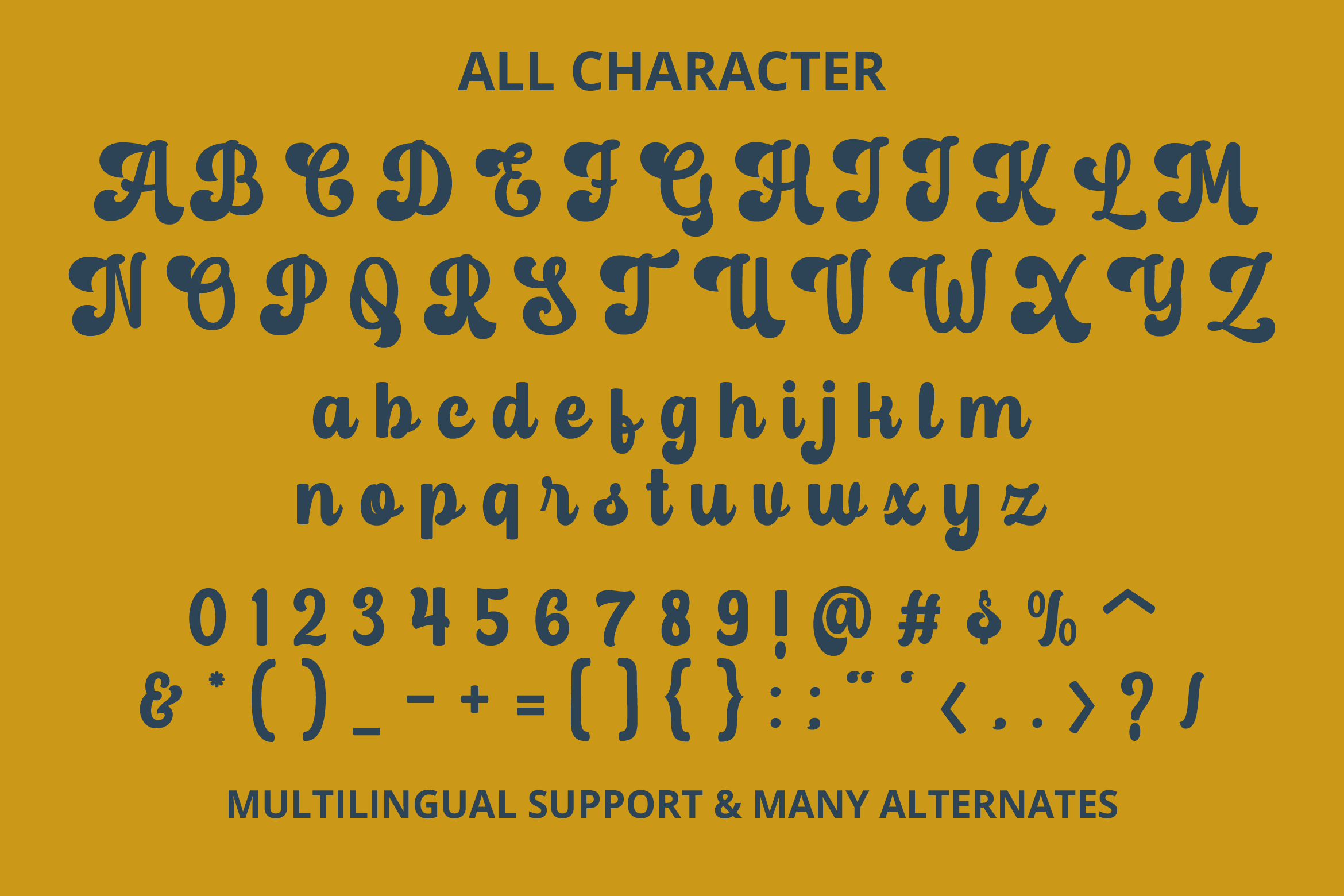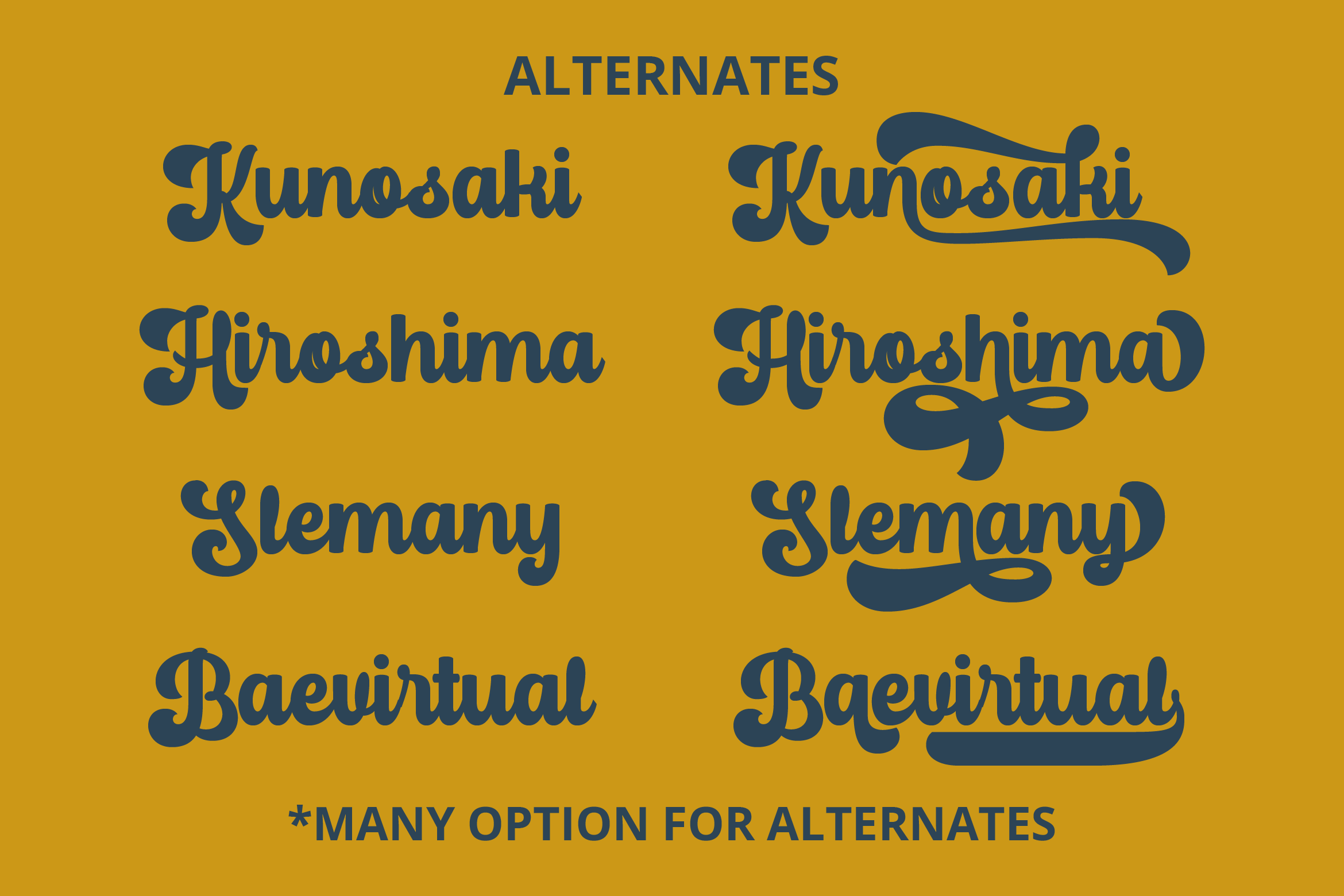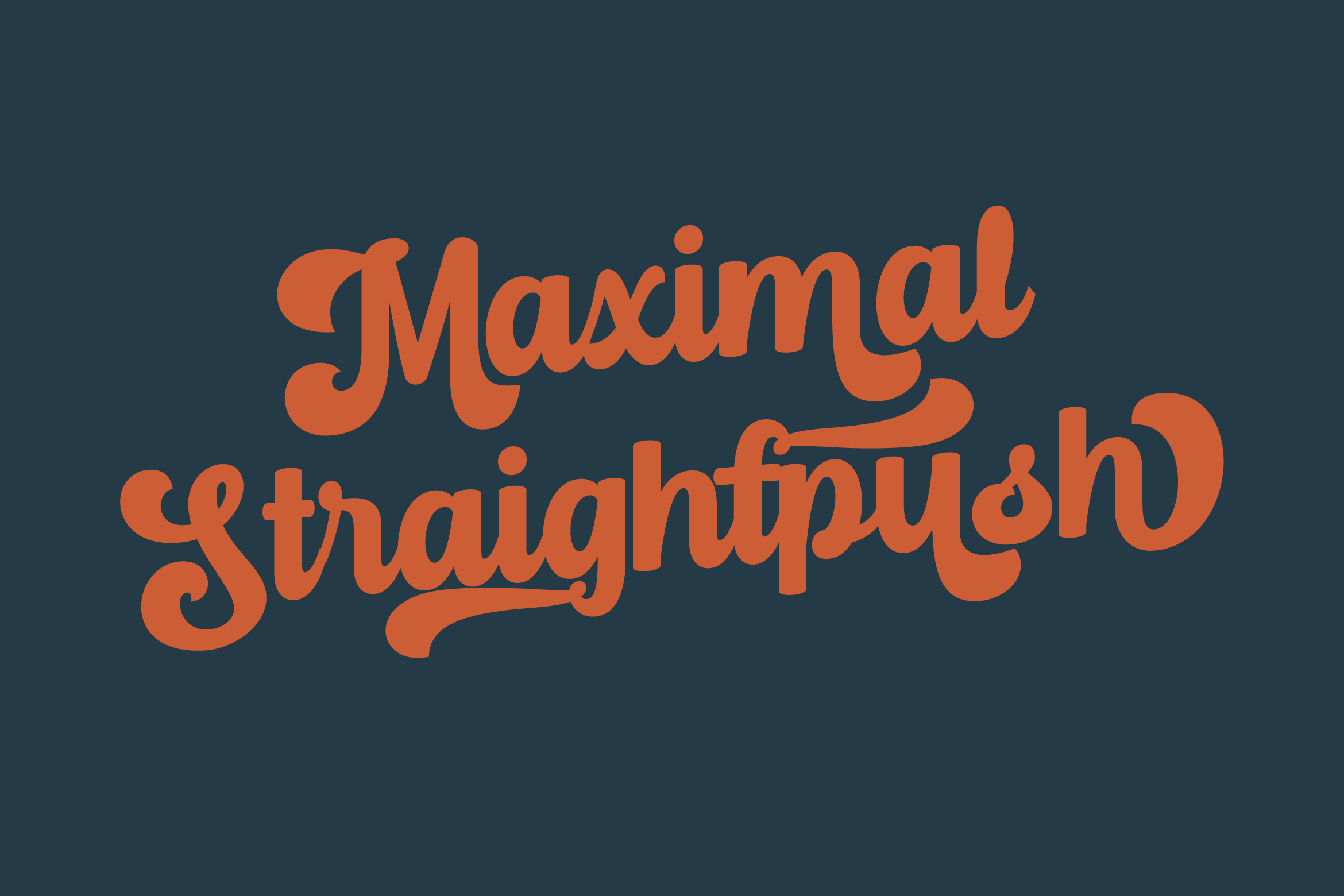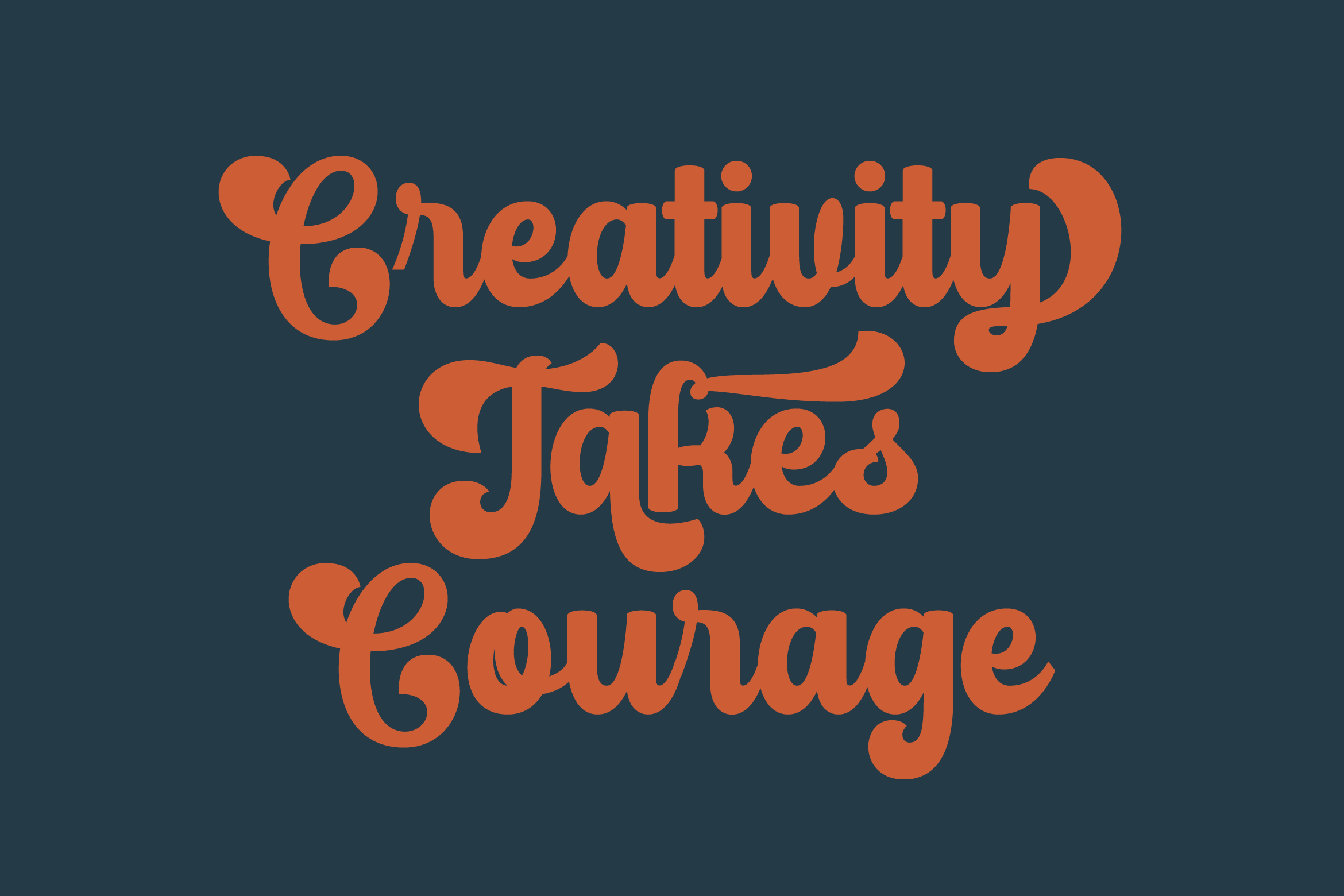
Mechaniclove Script Font
It’s a gorgeous and bold handwritten font, crafted to give your headlines and logotype projects a retro touch. This font reads as strong, confident, and dynamic and can add tons of nostalgic character to your designs. This font is PUA encoded which means you can access all of the glyphs and swashes with ease!